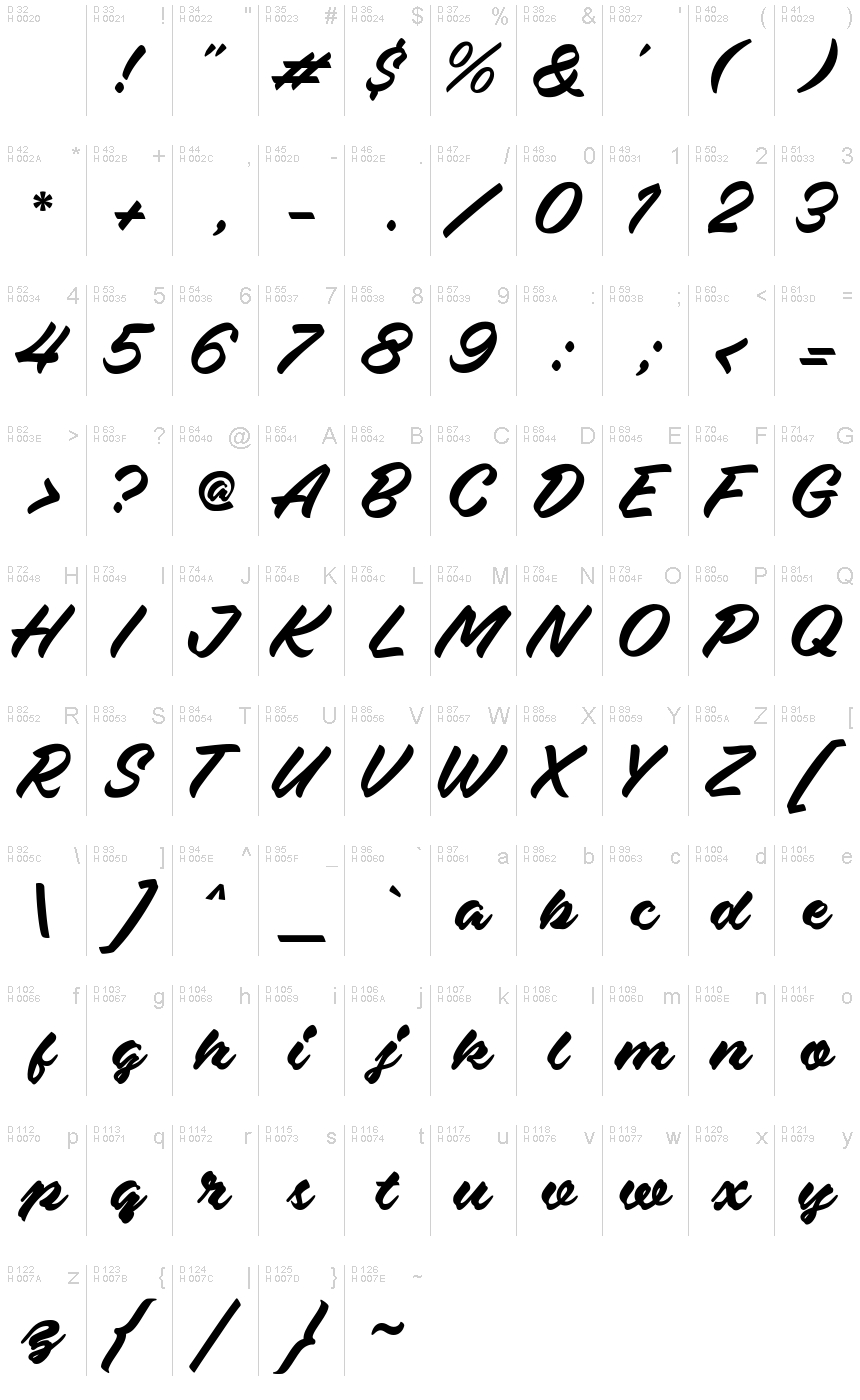
ChibaScript
Chiba Script, designed by Brainware Graphic, captivates with its enchanting brush-style strokes that convey both elegance and dynamism. Each letter dances with a fluid grace, showcasing dramatic curves and flowing connections that add a personal touch to any design. The font's bold characters stand out vividly, making it ideal for projects that demand attention and warmth.
With its unique aesthetic appeal, Chiba Script is perfect for branding materials, invitations, and posters where creativity reigns. Its expressive style not only enhances visual storytelling but also evokes a sense of authenticity and charm. Whether used in digital or print formats, this font embodies a contemporary yet timeless essence, making it an excellent choice for designers seeking to leave a lasting impression.